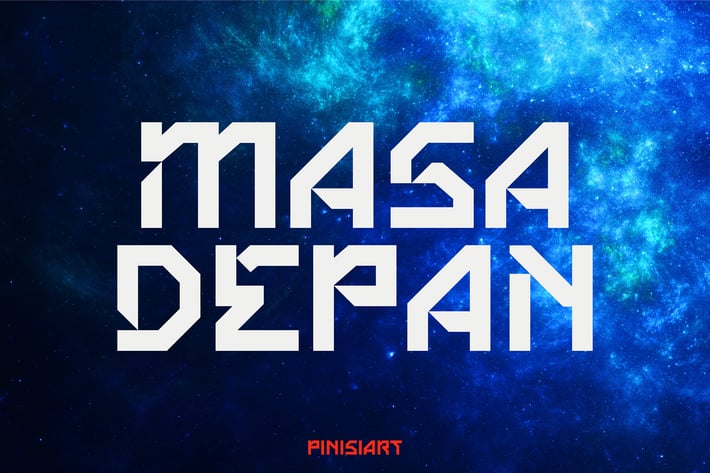
Futuristic Font - Masadepan
MASADEPAN is a futuristic font with a clean, modern, and forward-looking design. With its sharp lines, geometric shapes, and minimalist aesthetics, this font embodies technology, innovation, and progress. It’s perfect for projects aiming to appear futuristic, sophisticated, and visionary.
Market Applications
Technology & Innovation Design
Perfect for branding tech startups, AI projects, and digital products.
Gaming & Sci-Fi Projects
Ideal for futuristic game titles, UI/UX interfaces, and science fiction themes.
Modern Logo & Branding
Gives a cutting-edge look for businesses, especially in technology and science fields.
Futuristic Posters & Films
Suitable for posters of sci-fi movies, cyberpunk visuals, or futuristic-themed content.
Web & App Design
This font works seamlessly for modern UI/UX designs with a digital, high-tech feel.